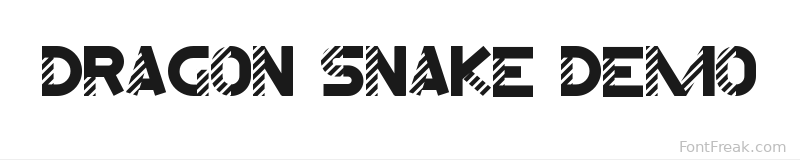
Dragon Snake Demo
About Dragon Snake Demo
The Dragon Snake Demo font by Noah Type is a unique display typeface that captivates with its adventurous and bold aesthetic. As a decorative font, it features an eye-catching design that evokes the mystique of dragons and the fluidity of snakes, making it perfect for projects that require a touch of fantasy and intrigue. The font showcases varying stroke weights that create a dynamic visual impact, while its contrasting elements give it a sense of depth and movement. The spacing between characters is thoughtfully crafted, ensuring legibility without sacrificing style. Decorative elements, such as the jagged edges and flowing curves, add an artistic flair that enhances its overall appeal.
This font is ideally suited for a range of creative applications. It can be used effectively for promotional materials related to fantasy-themed events, such as comic conventions or gaming tournaments. Additionally, it works wonderfully for movie posters, especially those in the fantasy or adventure genres, capturing the audience's attention at first glance. Restaurant menus that seek to convey a unique dining experience can also benefit from the distinctiveness of this typeface. Moreover, the Dragon Snake Demo font is a great choice for graphic designers looking to infuse their artwork with a sense of playfulness and originality.
Targeting graphic designers, small business owners, and content creators, this font offers versatility and creativity for a variety of projects. The Dragon Snake Demo font free download is an excellent opportunity to incorporate a striking typeface into your design toolkit without any cost. What truly sets this font apart is its ability to blend whimsy with sophistication, making it a standout choice for anyone looking to make a memorable impression.